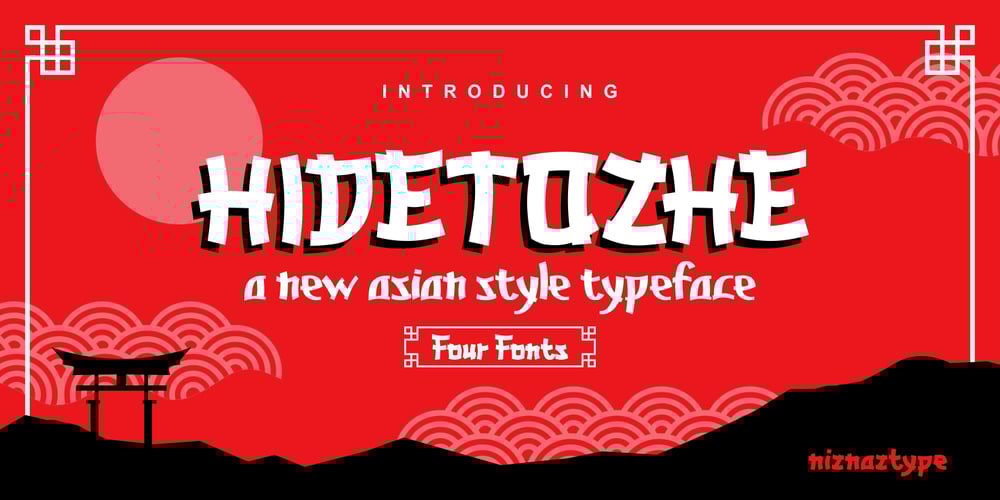
Hidetozhe Font Family was designed by Muhammad Nazarudin and published by Niznaztype. Hidetozhe contains 4 styles and family package options. Introducing a new Asian style typeface. Its name Hidetozhe. This fonthave a character’s alphabet in China, Japan, Korea, Hongkong and thecountries with Mandarin’s culture.Hidetozhe have an unique and strong charateristic in each glyph. It cangive an impression as a lettering with Asian style. Hidetozhe verycomfortable to create a design that take about Asian or Mandarin style asabove.Hidetozhe consist of :- Uppercase and lowercase- Numeral, punctuation and symbol- Multilingual LanguageHidetozhe save in four fonts : regular, italic, thin and thin italicThemes like Mandarin’s culture, Japan or Chinese culture, Imlek newyear, martial art like Kungfu, Taekwondo and others, all about Asian stylesuitable to use this Hidetozhe font. Please, enjoy it with Hidetozhe. A new Asian style typeface.If you have any question, send me email in emnazar2009@gmail.comThanks a lot.